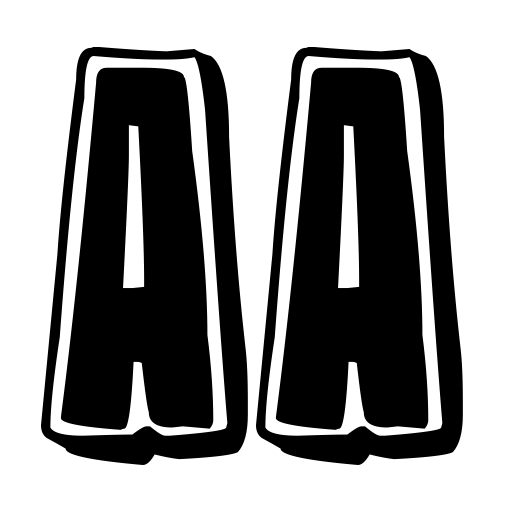
Bingo Fiesta is a bold, playful display font with a distinct three-dimensional shadow effect that gives it a fun, retro carnival vibe. Its tall, condensed letterforms and strong black-and-white contrast make it perfect for eye-catching headlines, posters, and branding that want to convey excitement and energy. This font works wonderfully for festive designs and informal settings where a lively personality is key.
Bingo Fiesta Font
About Bingo Fiesta Font